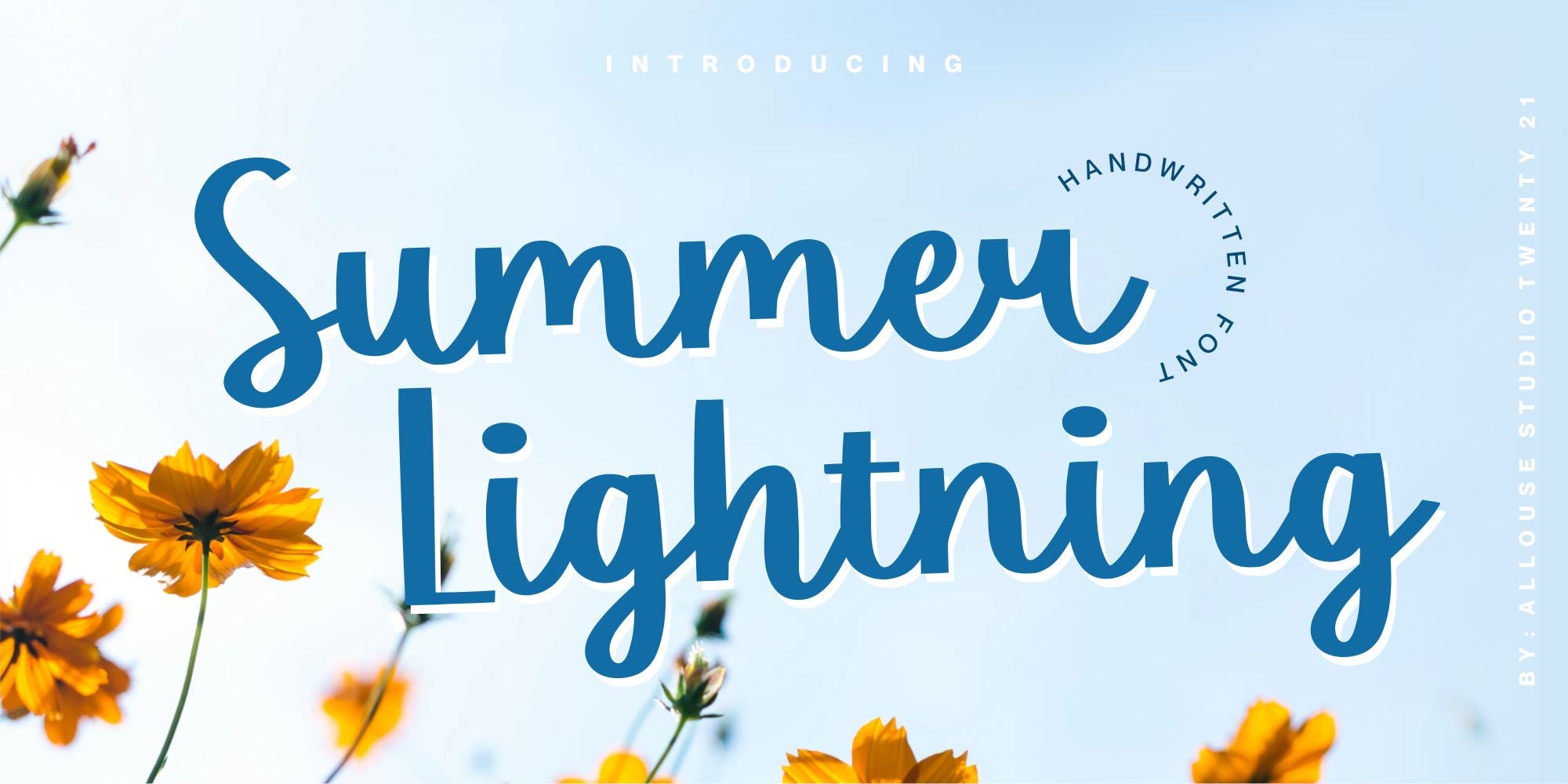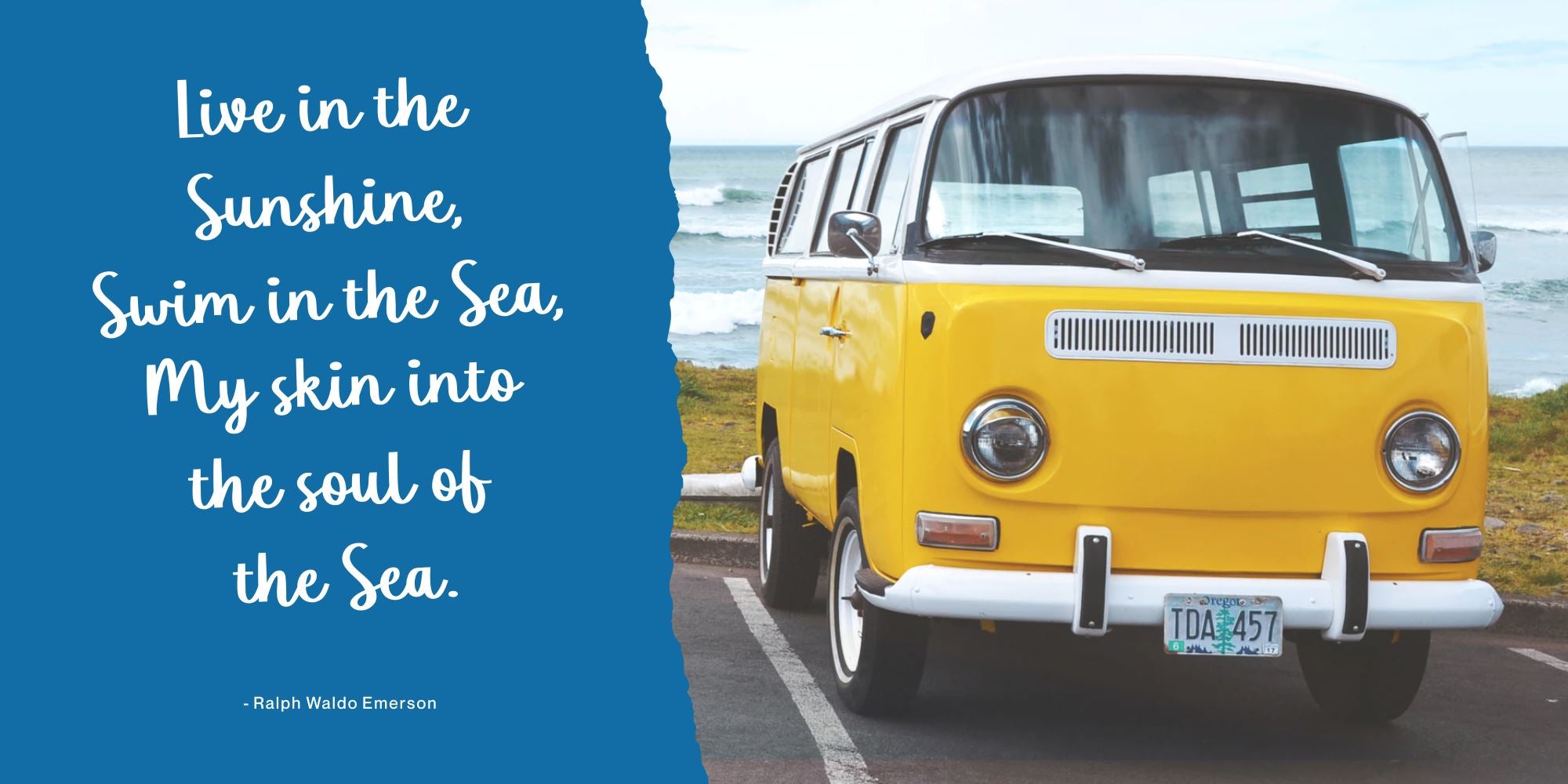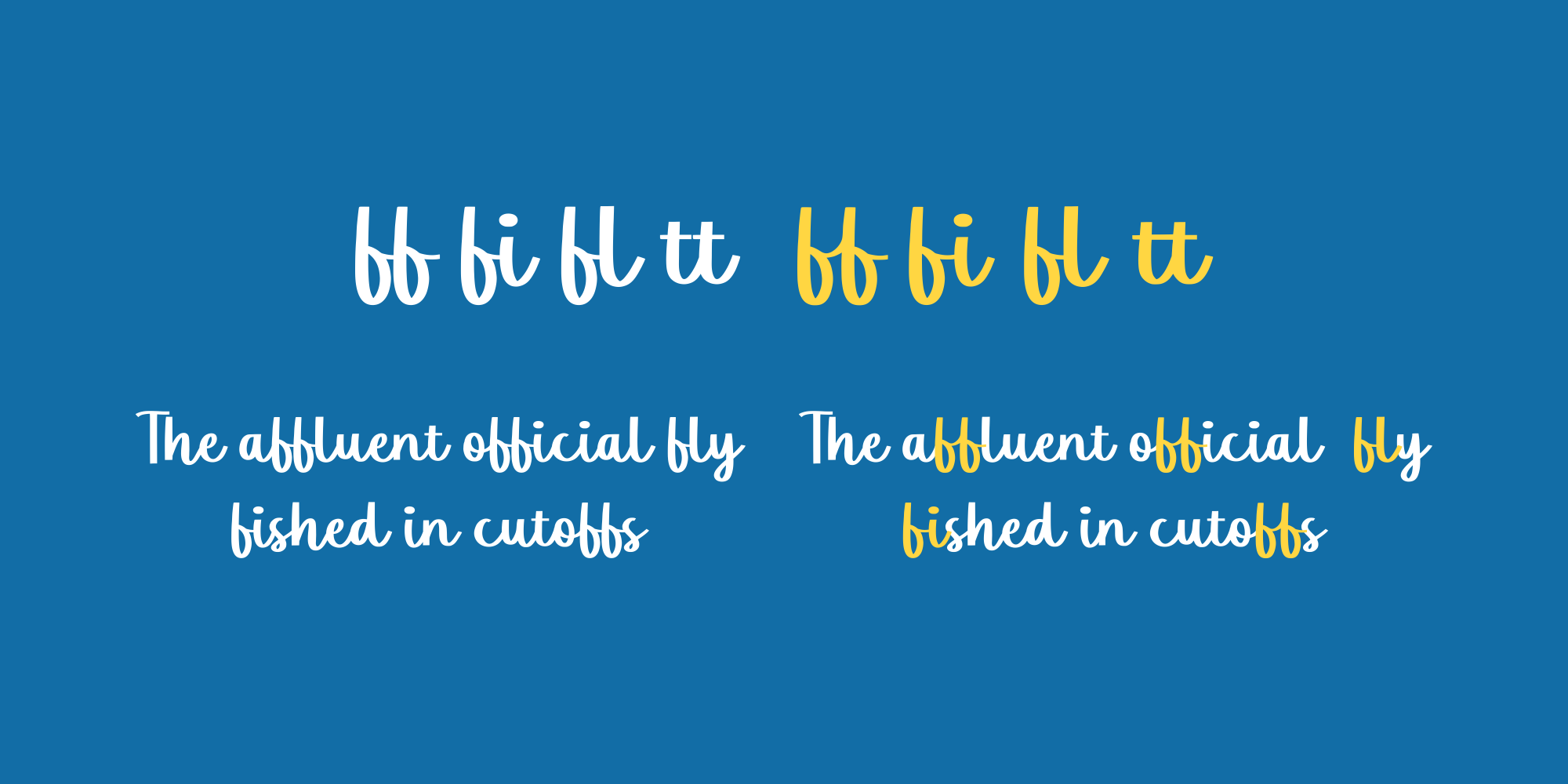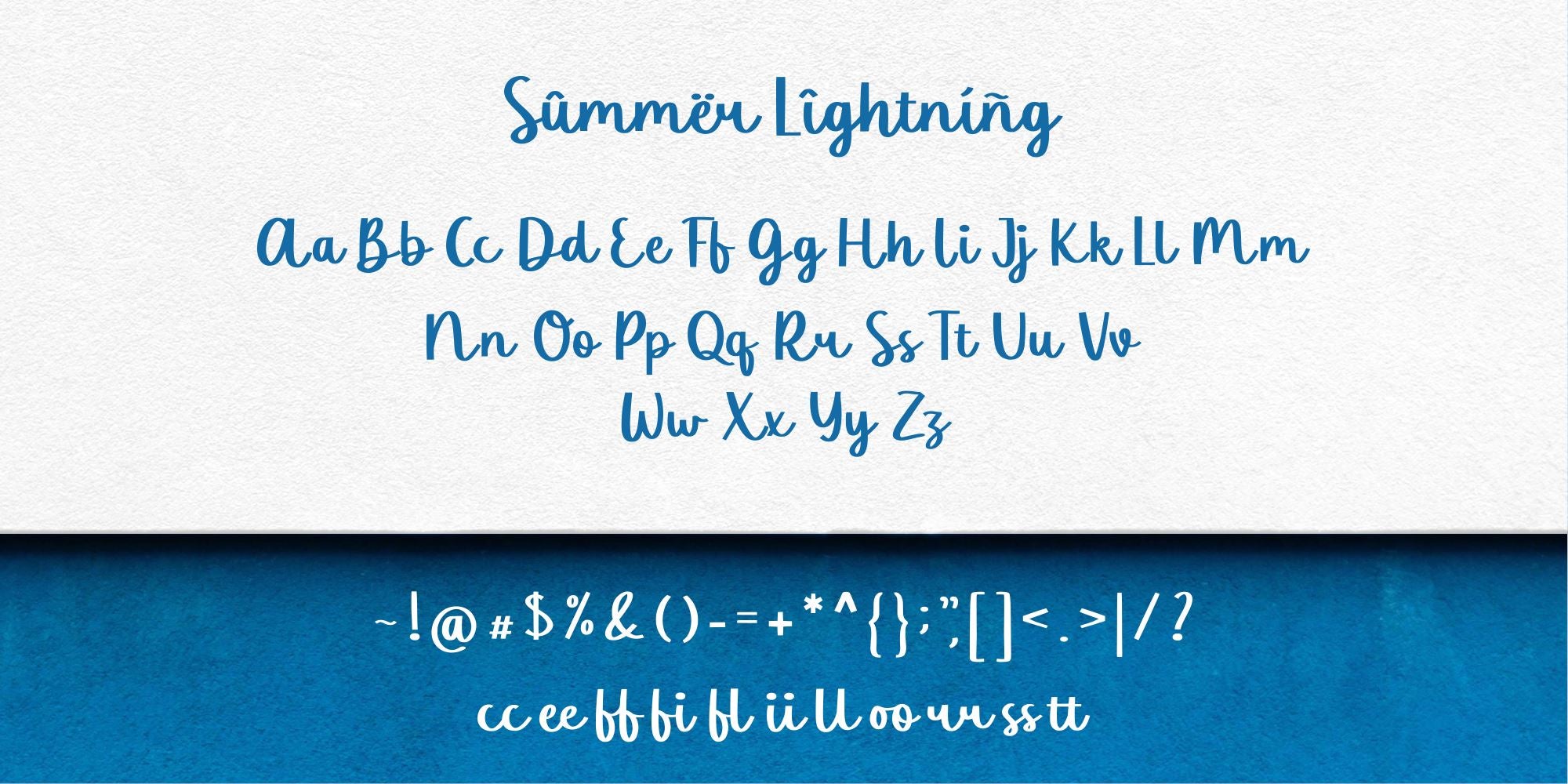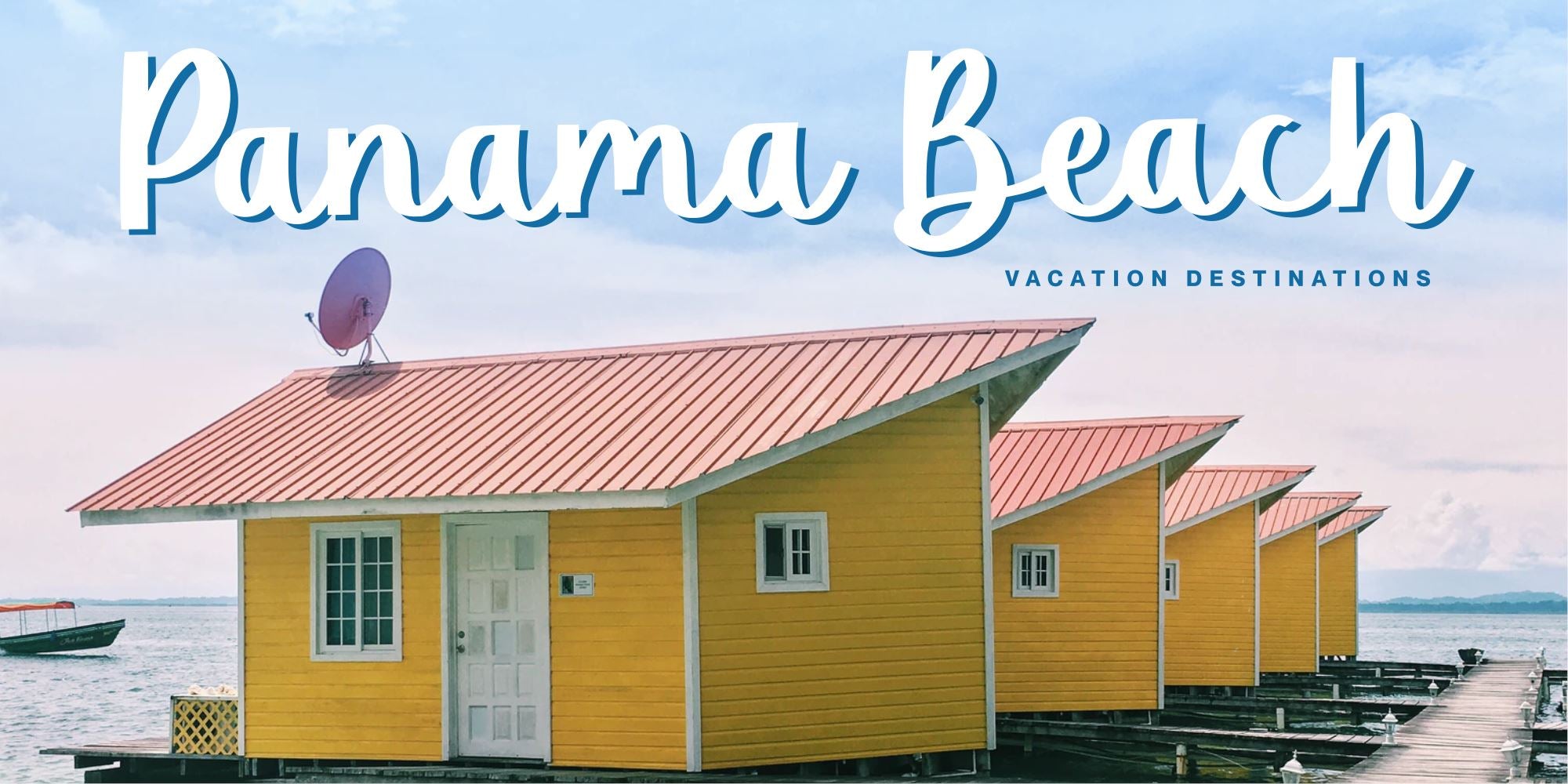
Summer Lightning
About Summer Lightning
Proudly Present, Summer Lightning a Handwritten Font. Summer Lightning is perfect for any titles, logo, product packaging, branding project, megazine, social media, wedding, or just used to express words above the background. Summer Lightning also come with Multi-Lingual Support. Enjoy the font, feel free to comment or feedback, send me PM or email. Thank You!